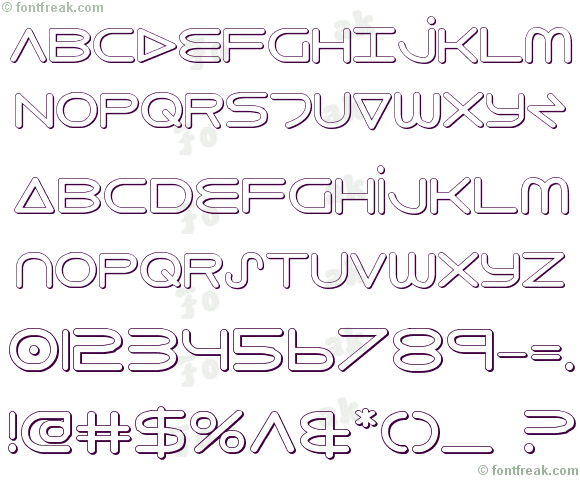
The 8th Element ExtraBold font, designed by Daniel Zadorozny, belongs to the display category, making it an excellent choice for projects that require a striking visual impact. This font features a robust and modern aesthetic with a strong stroke weight, characterized by its boldness and slightly rounded edges. The consistent spacing between letters enhances readability while maintaining a compact appearance, making it ideal for attention-grabbing headlines and titles.
Visually, the 8th Element ExtraBold font exhibits a unique three-dimensional quality that adds depth and character to any design. Its strong presence makes it suitable for a variety of applications, including movie posters that aim to captivate audiences, restaurant menus that want to convey a sense of modernity, and promotional materials that require a bold statement. Additionally, this font can be effectively used in branding projects, where creating a memorable visual identity is essential.
Target audiences for the 8th Element ExtraBold font include graphic designers, small business owners looking to elevate their marketing materials, and content creators who seek to make their online presence stand out. Its versatility allows it to fit seamlessly into various creative projects, appealing to those who appreciate contemporary design.
In conclusion, the 8th Element ExtraBold font free download offers a perfect blend of boldness and modernity, making it a standout choice for anyone looking to make a significant visual impact. Its unique characteristics and diverse use cases make it a valuable addition to any designer's font library, ensuring that projects not only stand out but also convey a strong sense of style. Whether for digital applications or print, this font is sure to impress.